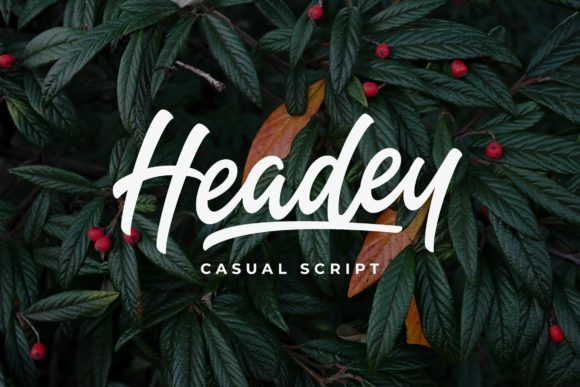
Introducing Headey Font: The Ultimate Bold Handwritten Font for Stunning Headlines and Logotypes
In the world of typography, a good font can make all the difference in creating visually appealing designs. If you’re looking for a font that exudes confidence, strength, and a touch of nostalgia, look no further than Headey Font. This gorgeous and bold handwritten font is specifically crafted to give your headlines and logotype projects a stylish touch that’s sure to capture attention.
The Characteristics of Headey Font
Headey Font is a true standout in the world of typography. Its bold and confident appearance makes it perfect for headlines, logotypes, and any other design project where you want to make a statement. The font’s handwritten nature gives it a unique and personal touch that’s sure to add a touch of warmth and character to your designs.
Strong, Confident, and Dynamic
Headey Font reads as strong, confident, and dynamic, making it perfect for designers who want to create a lasting impression. The font’s bold appearance ensures that your message will be heard loud and clear, while its dynamic nature adds a touch of energy and movement to your designs.
Nostalgic Character
One of the standout features of Headey Font is its ability to add tons of nostalgic character to your designs. The font’s handwritten nature gives it a retro feel that’s perfect for designers who want to create a vintage or distressed look. Whether you’re working on a branding project, a packaging design, or a marketing campaign, Headey Font is sure to add a touch of nostalgia that will resonate with your audience.
The Benefits of PUA Encoding
Headey Font is PUA (Private Use Area) encoded, which means that you can access all of the glyphs and swashes with ease. This encoding allows you to unlock the full potential of the font, giving you access to a wide range of characters and symbols that can be used to add variety and interest to your designs.
What is PUA Encoding?
PUA encoding is a system that allows font designers to include additional characters and symbols in their fonts. These characters can be accessed using specific keyboard shortcuts or through software applications that support PUA encoding. In the case of Headey Font, the PUA encoding allows you to access a wide range of glyphs and swashes that can be used to add a touch of personality to your designs.
The Benefits of PUA Encoding for Designers
The PUA encoding of Headey Font offers a range of benefits for designers. For one, it allows you to access a wide range of characters and symbols that can be used to add variety and interest to your designs. This means that you can create unique and eye-catching headlines, logotypes, and other design elements that will help your work stand out. Additionally, the PUA encoding makes it easy to use the font in a variety of software applications, including Adobe Creative Cloud and other design software.
Using Headey Font in Your Design Projects
Headey Font is a versatile font that can be used in a wide range of design projects. Here are a few ideas for how you can use this stunning font in your work:
Headlines and Logotypes
Headey Font is perfect for creating bold and eye-catching headlines and logotypes. The font’s strong and confident appearance makes it ideal for use in branding and marketing campaigns, while its nostalgic character adds a touch of warmth and personality to your designs.
Packaging Design
Headey Font is also well-suited for use in packaging design. The font’s bold and dynamic appearance makes it perfect for use on product labels, packaging materials, and other marketing collateral.
Marketing Campaigns
Headey Font can be used to add a touch of personality and style to your marketing campaigns. The font’s nostalgic character and bold appearance make it perfect for use in print ads, social media graphics, and other marketing materials.
Tips for Getting the Most Out of Headey Font
Here are a few tips for getting the most out of Headey Font:
Experiment with Different Sizes and Colors
Headey Font looks great in a variety of sizes and colors. Experiment with different sizes and colors to find the combination that works best for your design.
Use the Font’s Glyphs and Swashes
The PUA encoding of Headey Font gives you access to a wide range of glyphs and swashes. Use these characters to add a touch of personality and style to your designs.
Pair the Font with Other Fonts
Headey Font looks great when paired with other fonts. Experiment with different font combinations to find the one that works best for your design.
Headey Font is a stunning and versatile font that’s perfect for designers who want to add a touch of personality and style to their work. With its bold and confident appearance, nostalgic character, and PUA encoding, this font is sure to become a favorite in your design arsenal. Whether you’re working on a branding project, a packaging design, or a marketing campaign, Headey Font is the perfect choice.